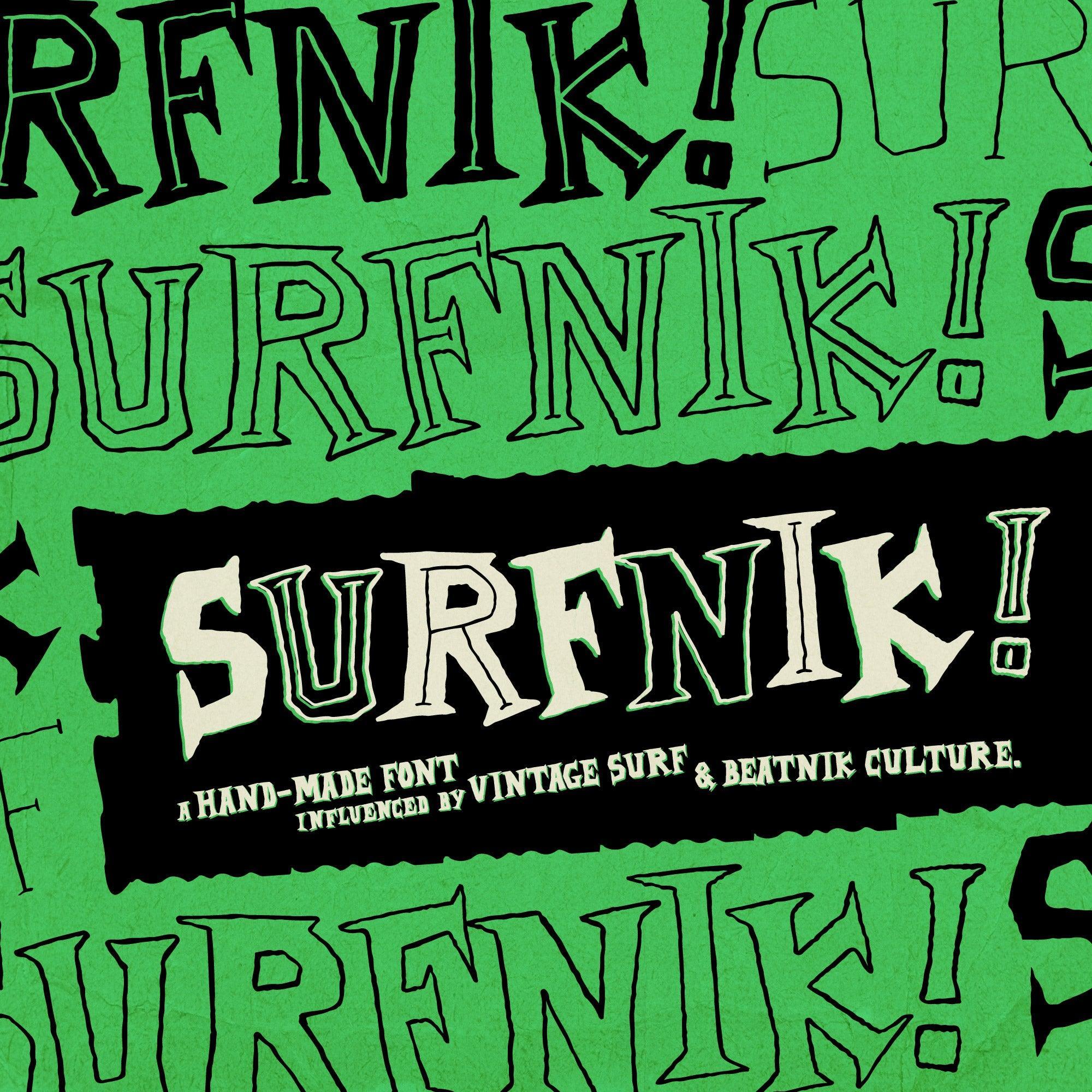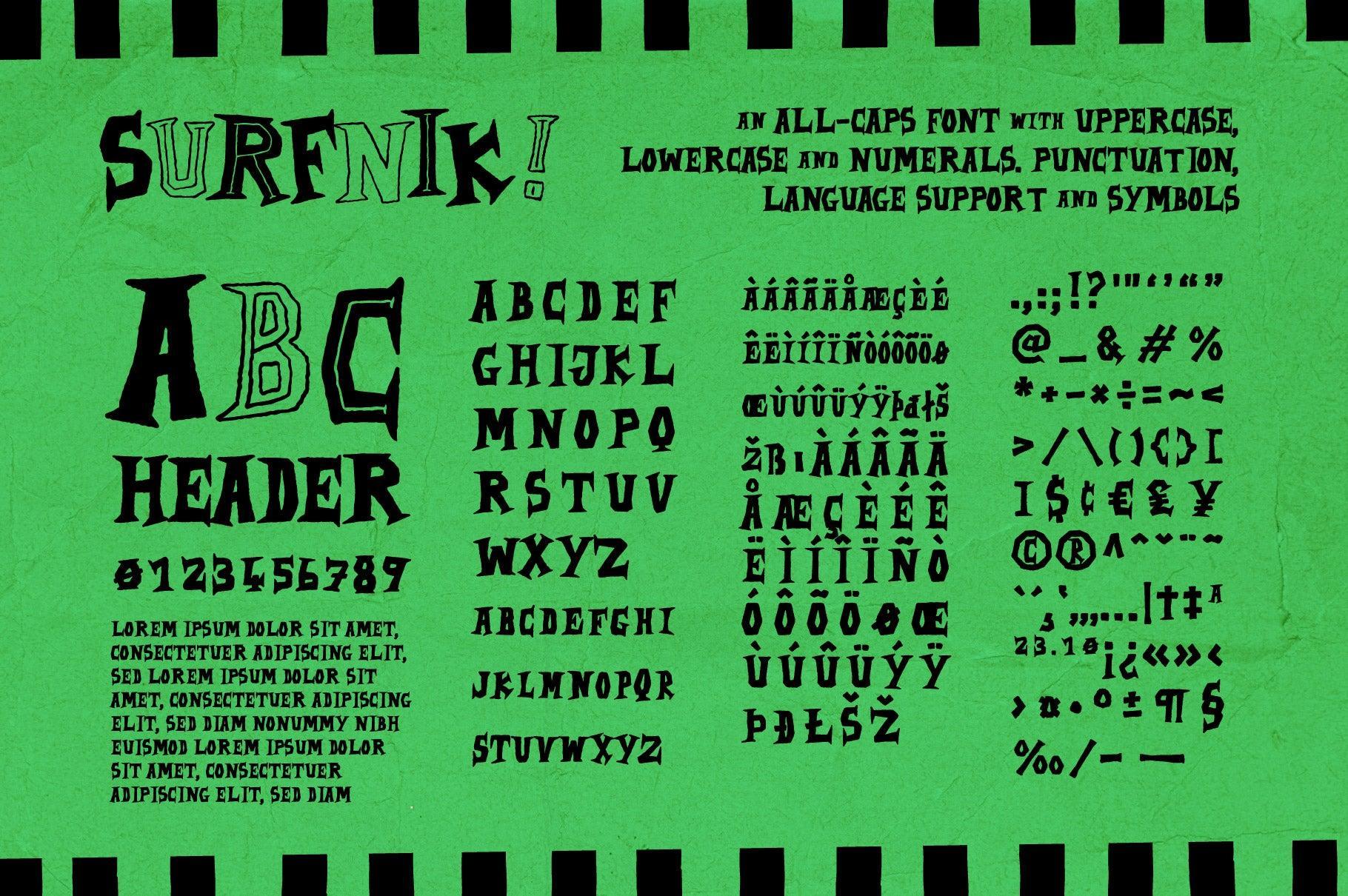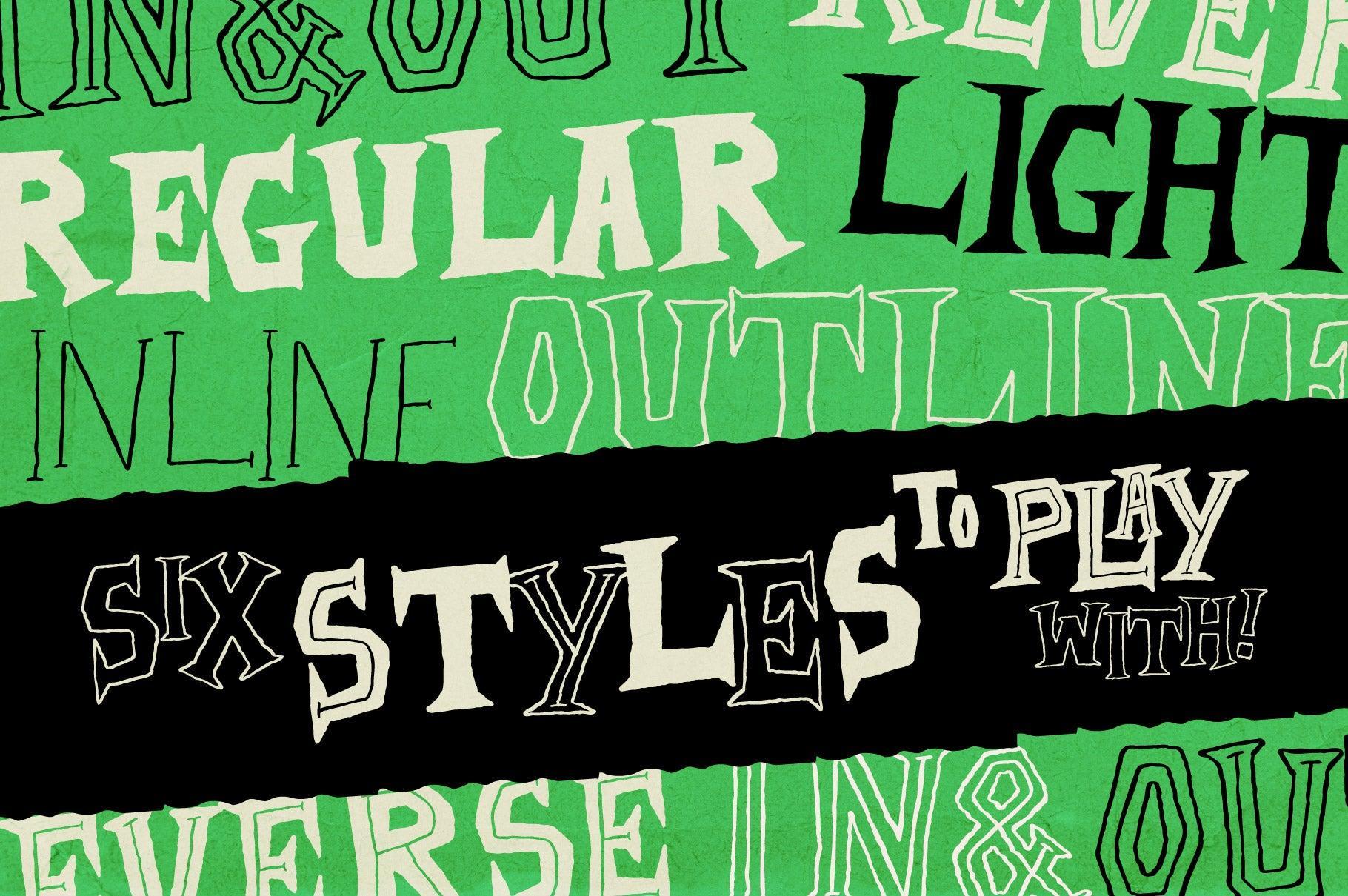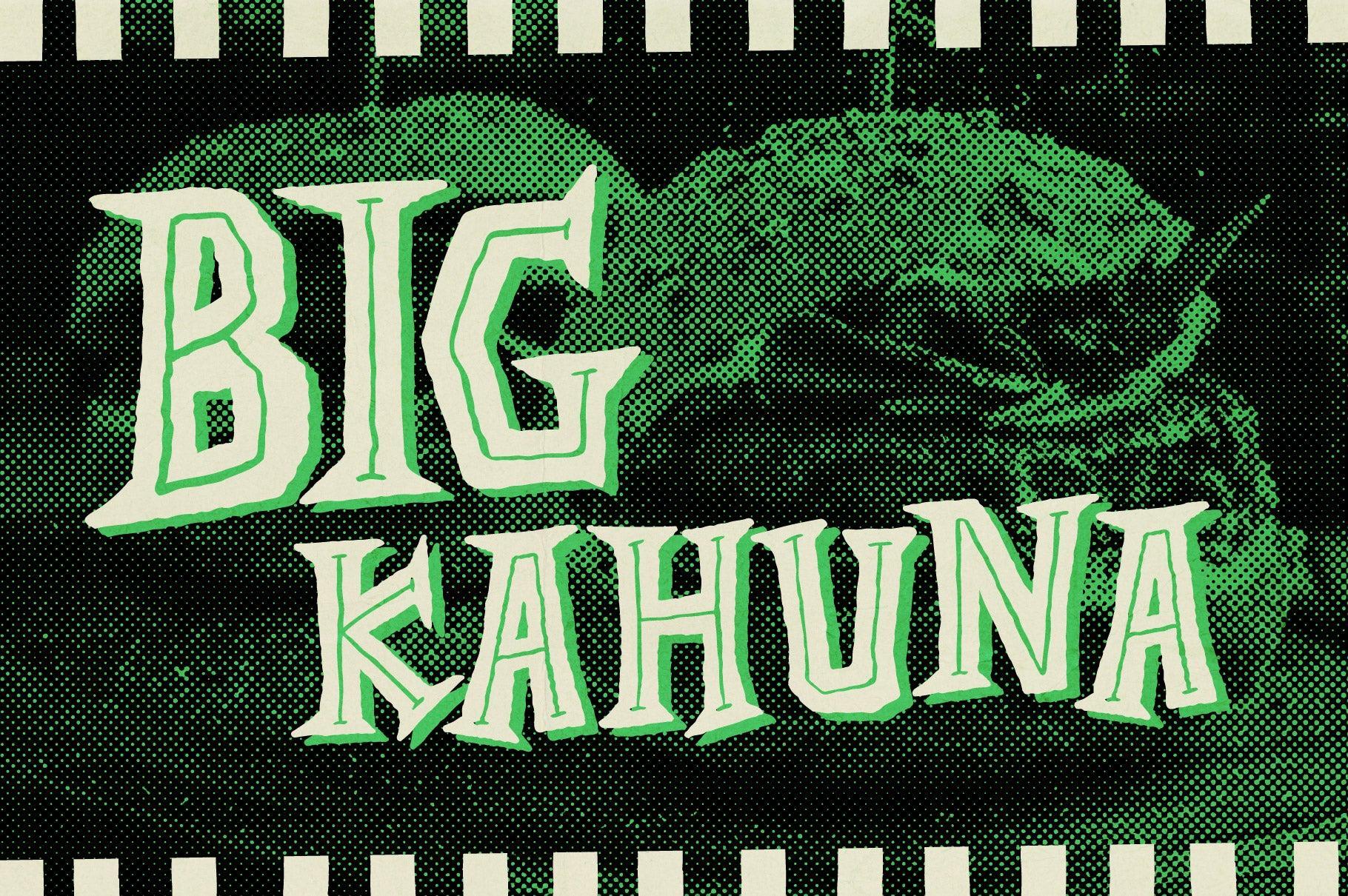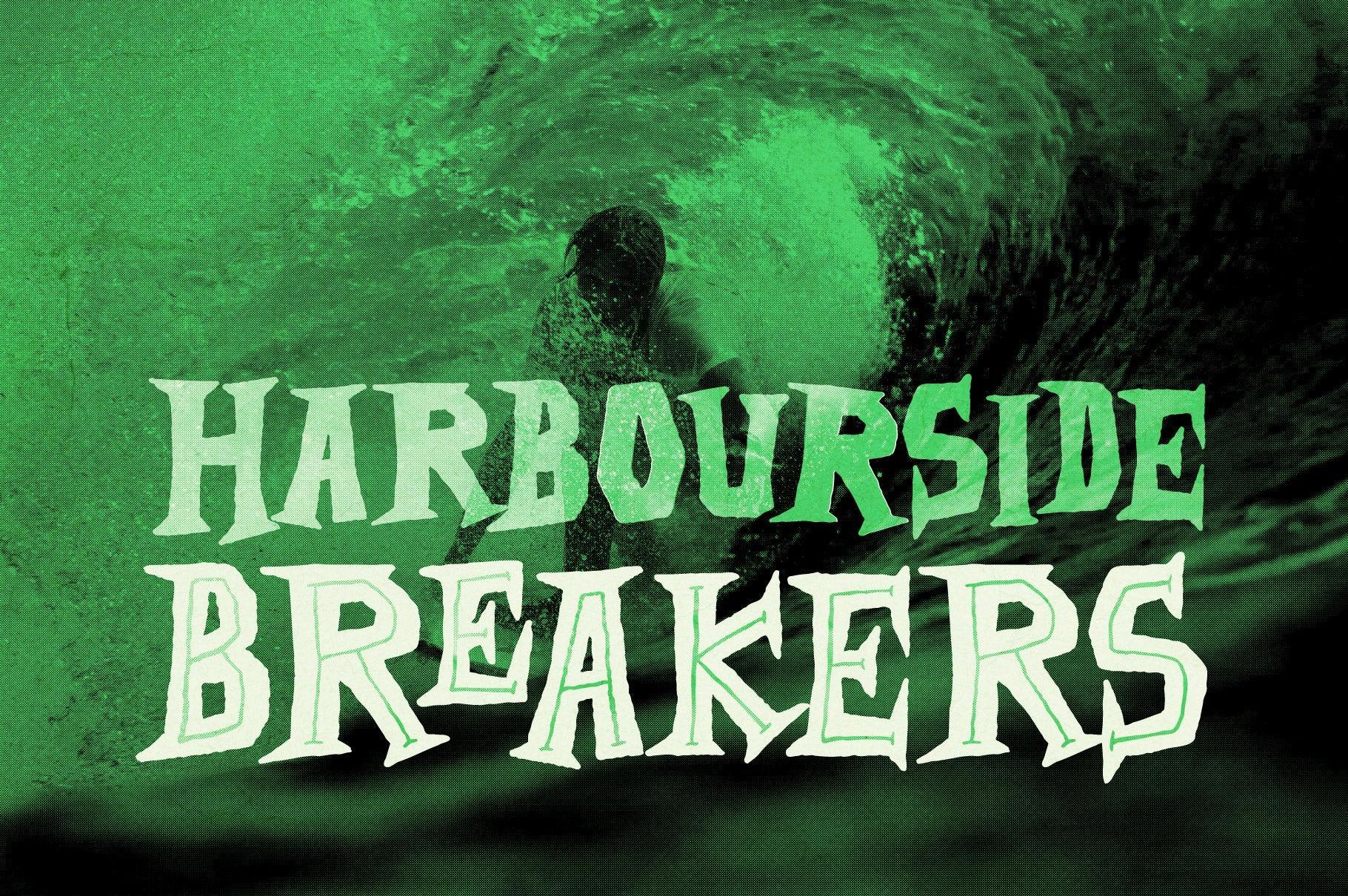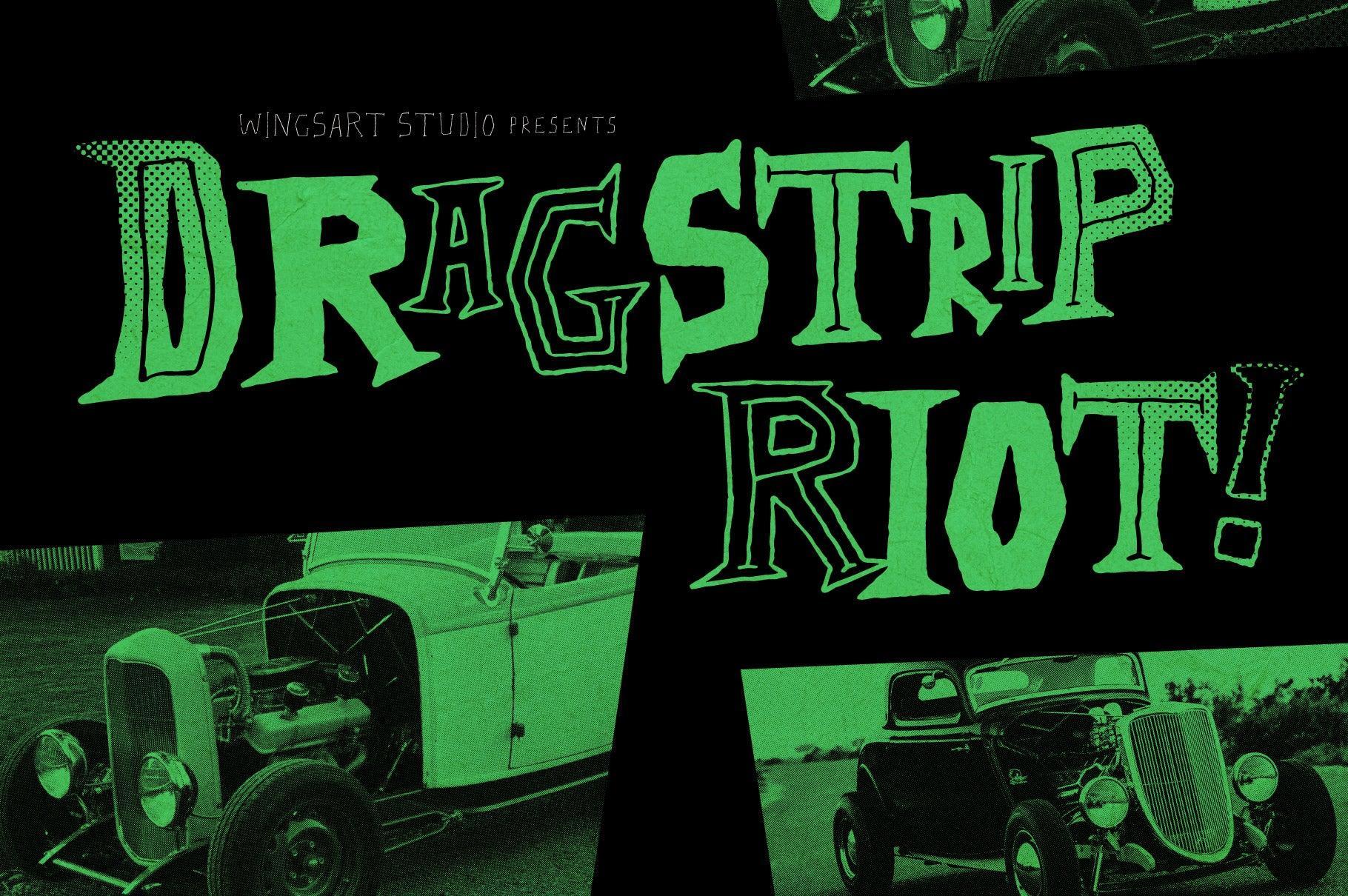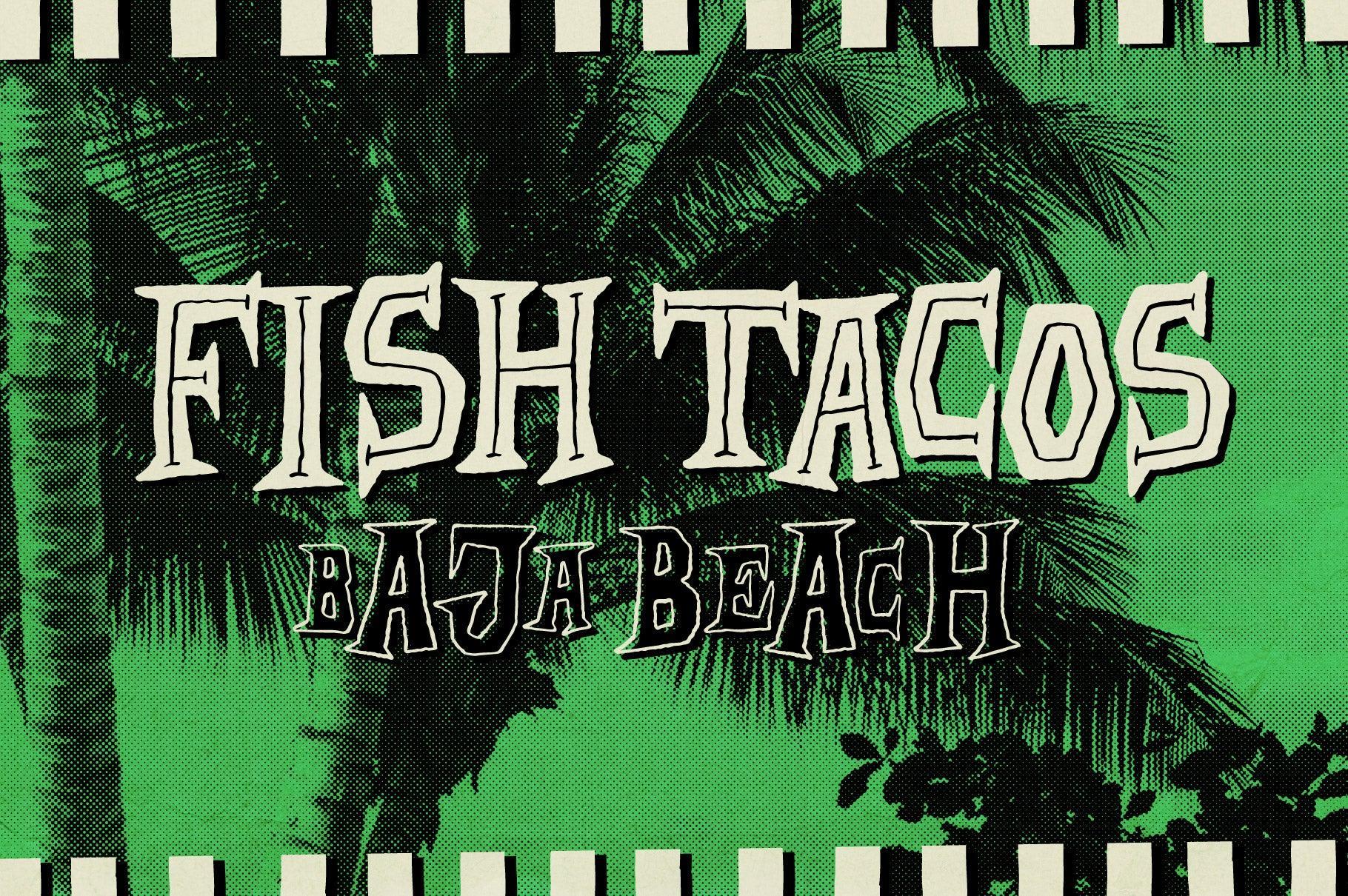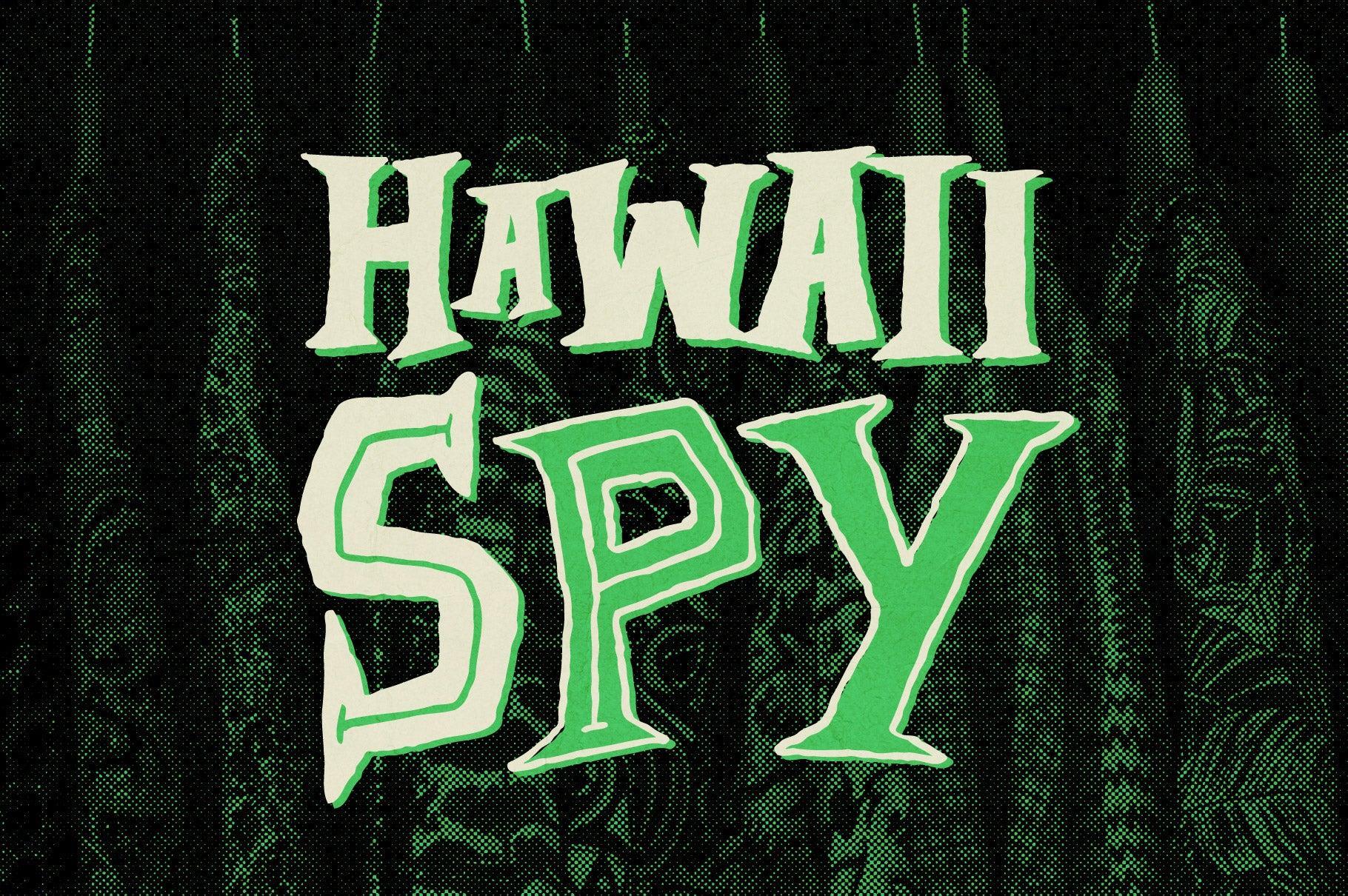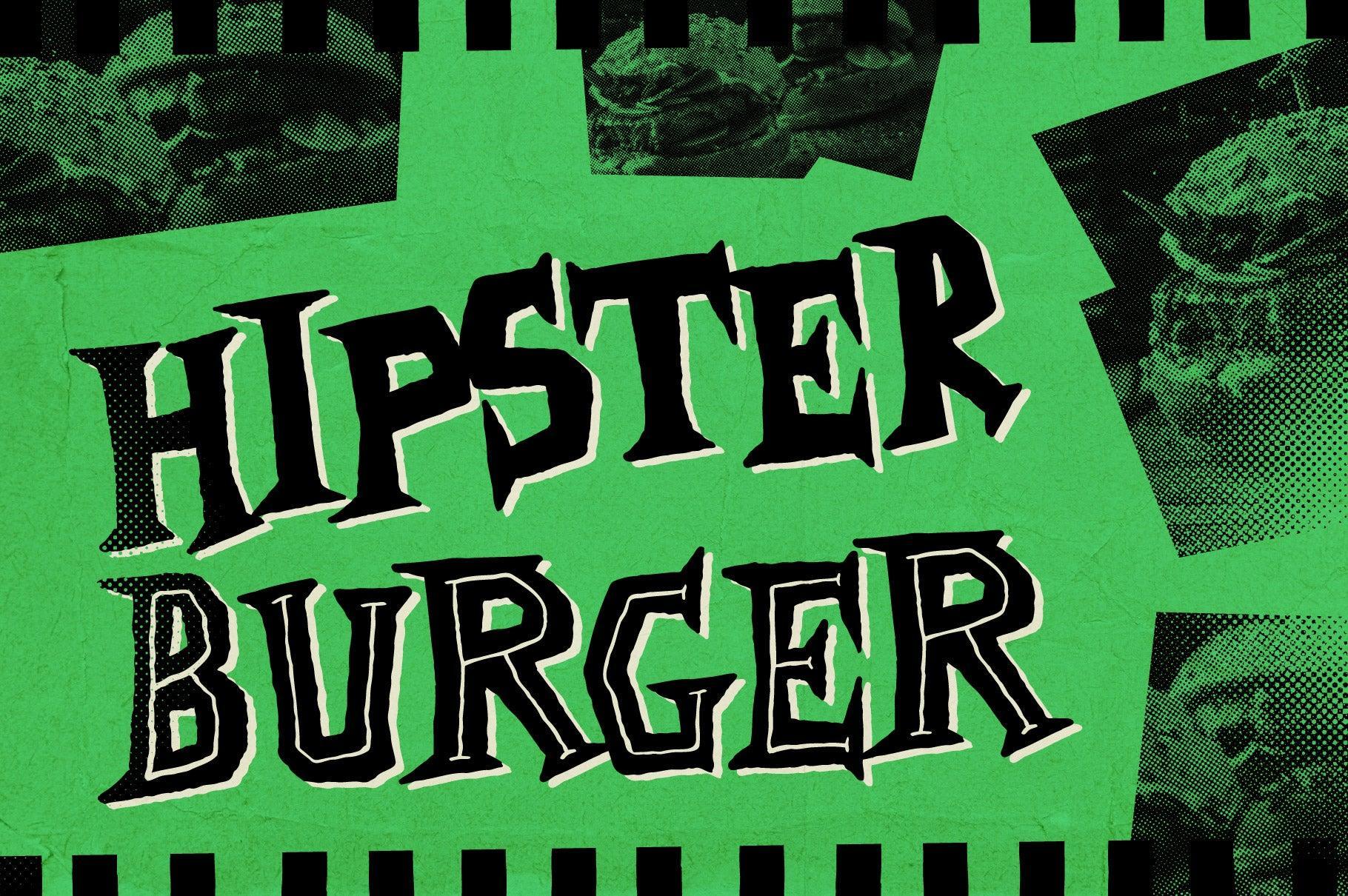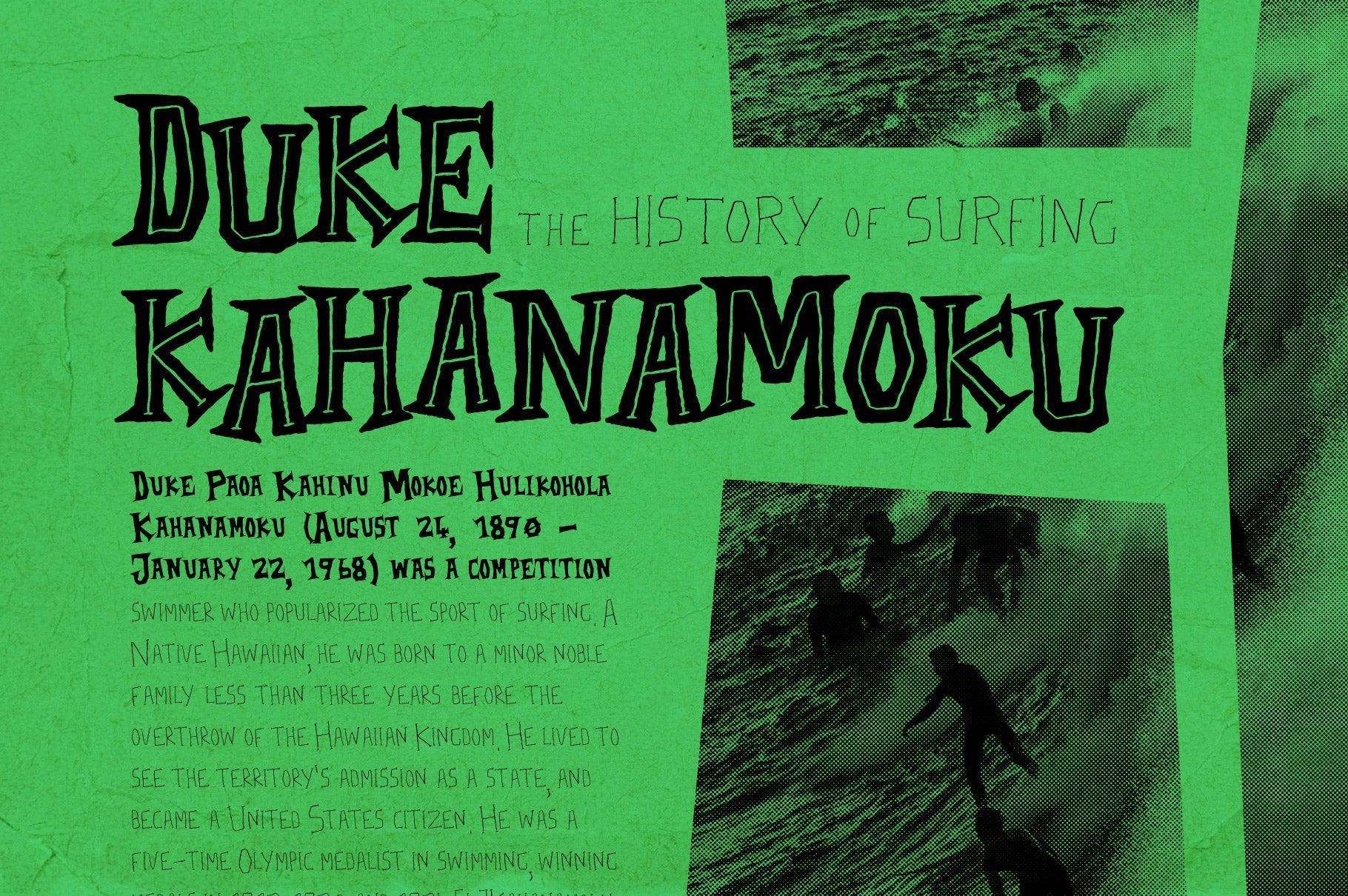
Surfnik - A Hand-Made Vintage Surf and Beatnik Font
Surfnik is a hand-drawn font influenced by vintage surf and beatnik culture from the 1950s and 60s. It features an all-caps design with unique uppercase and lowercase characters, punctuation, language support, numerals, and six styles that vary in weights and outlines.
Ideal for vintage-inspired graphic design and retro branding projects. Perfect for posters, menus, album covers, and movie titles, ensuring a playful and nostalgic aesthetic that captures the essence of 1950s surf and beatnik culture.